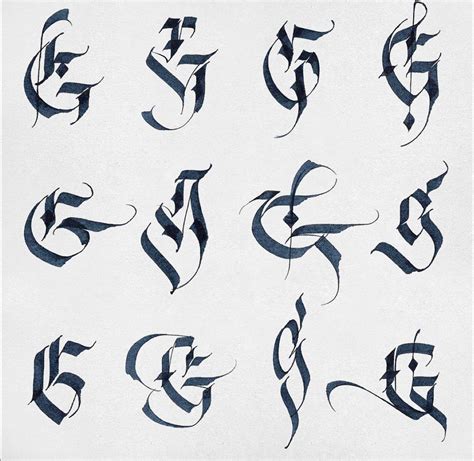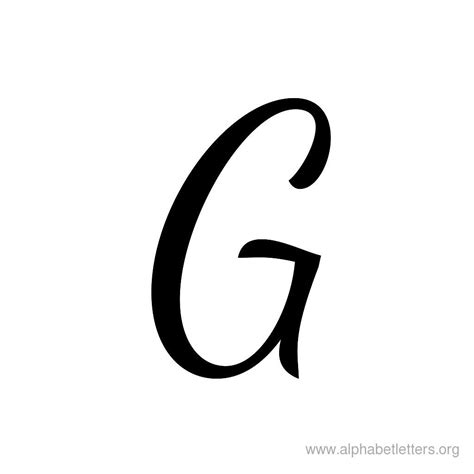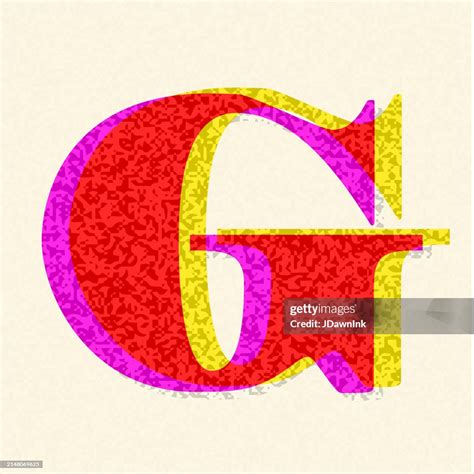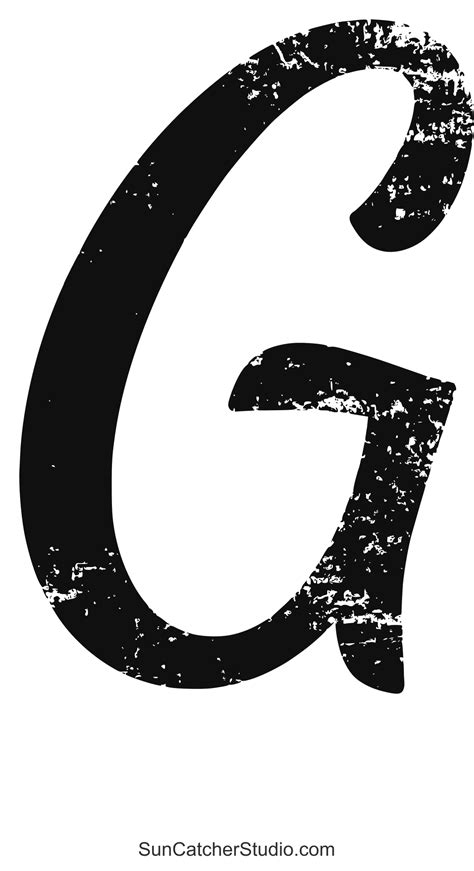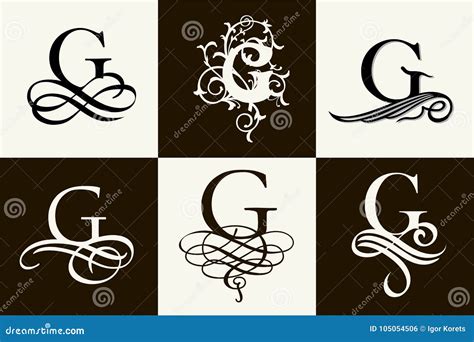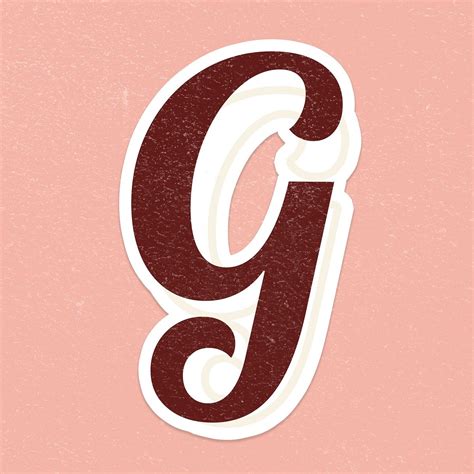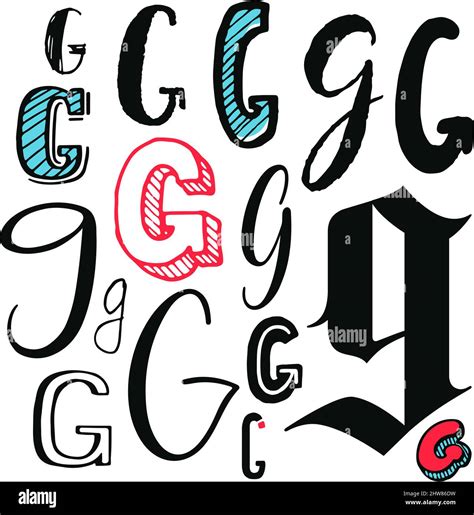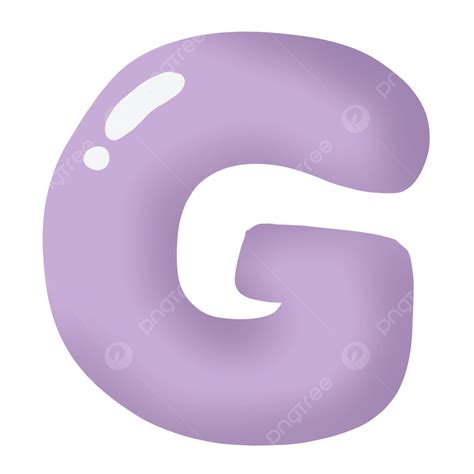
Typography serves as the optic vox of any digital task, acting as the span between raw info and user engagement. When designers look for the perfect aesthetic, G Font Styles often emerge as a top consideration due to their versatility and clean, structural elegance. Whether you are construct a embodied site, a modern mobile app, or a creative portfolio, choosing the correct typeface can importantly charm how your hearing perceives your marque's potency and personality. In this comprehensive usher, we will explore the shade of various font categories, how they impact readability, and why specific letterforms labeled under the G-series or similar geometrical classifications have become industry staples for high-impact communicating.
Understanding Font Classification and Versatility
To master the art of typography, one must first interpret that font styles are not just decorative choices; they are functional tools. The classification of typefaces - ranging from Serif and Sans-Serif to Script and Display - dictates how a reader processes information. G Font Styles, which often lean toward the geometrical Sans-Serif class, are extremely favored in modernistic UI/UX pattern because of their eminent legibility across multiple blind sizes.
The Psychology of Geometric Typefaces
Geometric fonts are built upon strict conformation like band, foursquare, and triangulum. This unbending structure creates a sense of order, constancy, and efficiency. Designers opt these mode when they want to convey:
- Professionalism: Clean lines suggest a well-organized companionship.
- Modernism: Minimalist esthetics are synonymous with current design tendency.
- Pellucidity: Eminent line between the letterform and the negative space assure legibility.
Choosing the Right Typeface for Your Project
Take a typeface is a poise act between aesthetics and utility. When incorporating G Font Styles into a layout, you should take the postdate equivalence table to interpret how different way serve different brand identities.
| Font Style | Visual Characteristic | Best Use Case |
| Geometric Sans | Circular, equilibrise, minimal | Tech startups, unclouded UI |
| Humanist Sans | Organic, calligraphic influence | Clear long-form copy |
| Modern Serif | Sharp contrast, eminent luxury | Editorial layout, fashion |
π‘ Note: Always try your elect face on nomadic device to secure the kerning remain consistent across various screen concentration.
Pairing Fonts for Visual Hierarchy
You should never rely on a single font menage for an entire site. Effective pattern relies on line. If you use a geometric style for your headings, try pairing it with a impersonal, extremely readable baptistery for the body copy. This permit the headings to trace the user's eye, while the body text ensures they stick engage with your content for long period.
Optimization Techniques for Digital Typography
Once you have selected your style, technological execution is key to success. Proper line summit (leading), character spacing (tracking), and missive spacing (kern) are the unseeable details that distinguish professional designing from amateur employment. Use G Font Styles efficaciously by keep your line duration between 50 and 75 characters; this duration is wide study the "angelic place" for comfortable indication.
The strategical covering of typography remains a cornerstone of efficient digital communication. By focalise on the structural integrity of your type alternative and adhering to fundamental designing principles like hierarchy and spacing, you can transform the user experience from functional to exceptional. Remember that the ultimate goal of any fount is to serve the reader, ensuring that your substance is delivered with precision and ocular concordance. Logical experimentation with diverse G Font Styles will eventually allow you to develop a signature visual language that defines your marque's front in an increasingly crowded digital landscape.